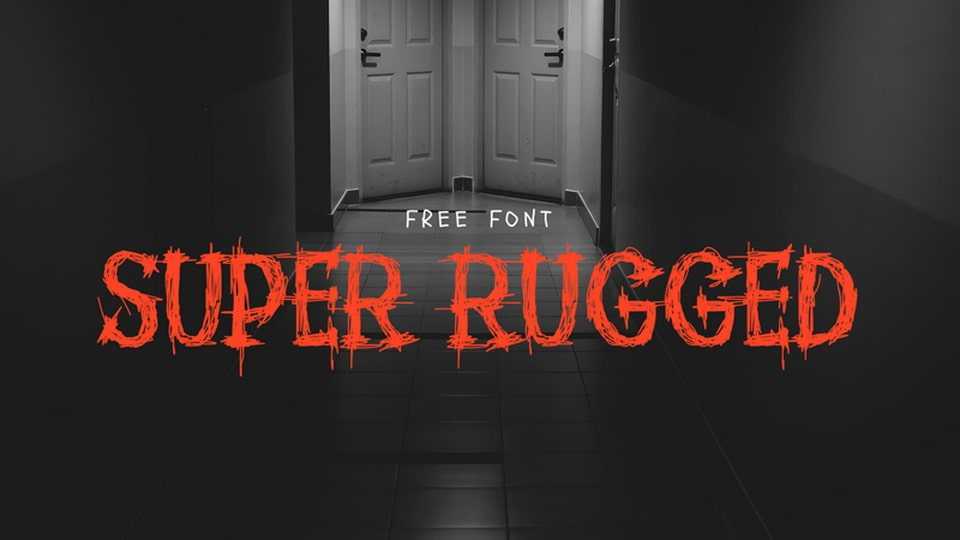
Download Super Rugged font, a uniquely hand-crafted horror typeface designed to infuse your projects with an eerie ambiance. With scratched textures and subtle shading, each letter feels haunted, perfect for horror-themed designs.